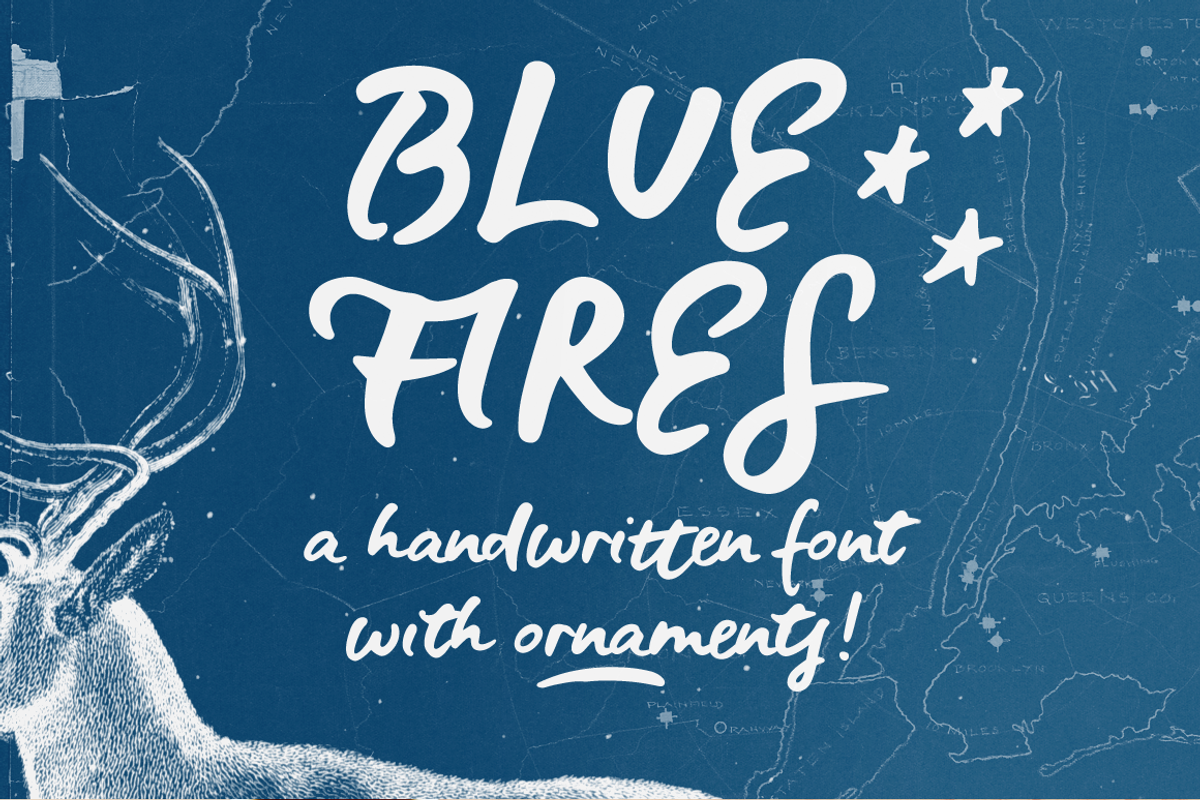
Blue Fires Handwritten Brush Font Free Download is a bold, expressive typeface that ignites creativity with every stroke. Designed with dynamic brush lettering, this font radiates energy and attitude—perfect for posters, album covers, apparel branding, and social media content that demands attention. Its raw, hand-drawn texture gives your words a sense of movement and intensity, making each design feel alive and powerful. Whether you're crafting edgy marketing materials or creating standout logos, Blue Fires Handwritten Brush Font Free Download lets you test its fiery character before investing in a commercial license. It’s a go-to font for creatives who want their message to burn bright and leave a lasting impression. Let your designs spark emotion and stand out from the crowd with this electrifying brush font.